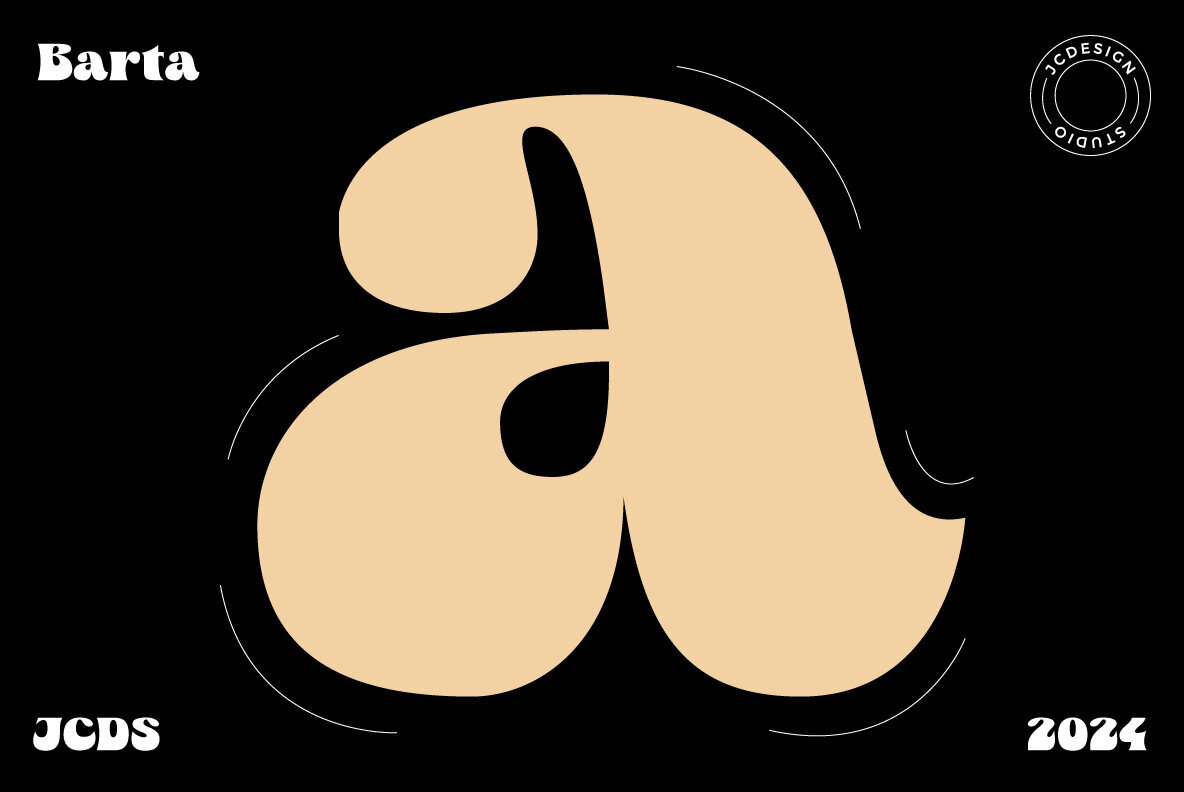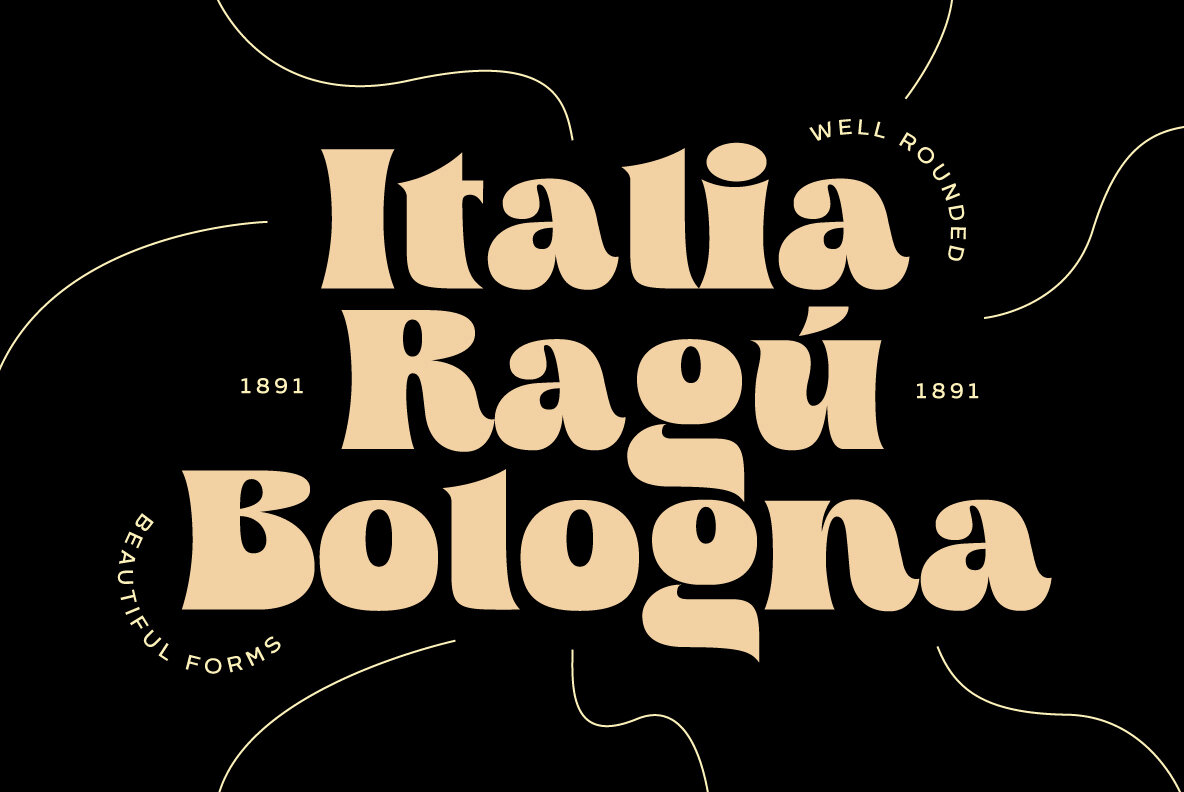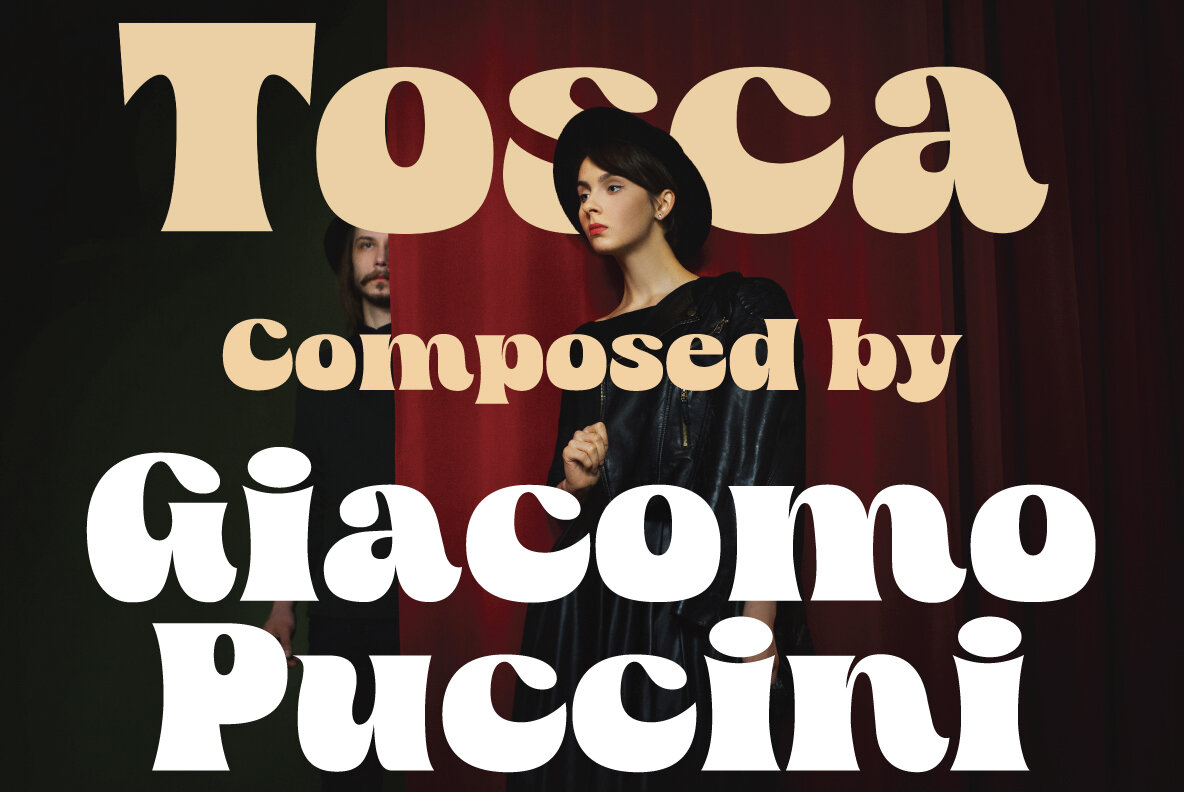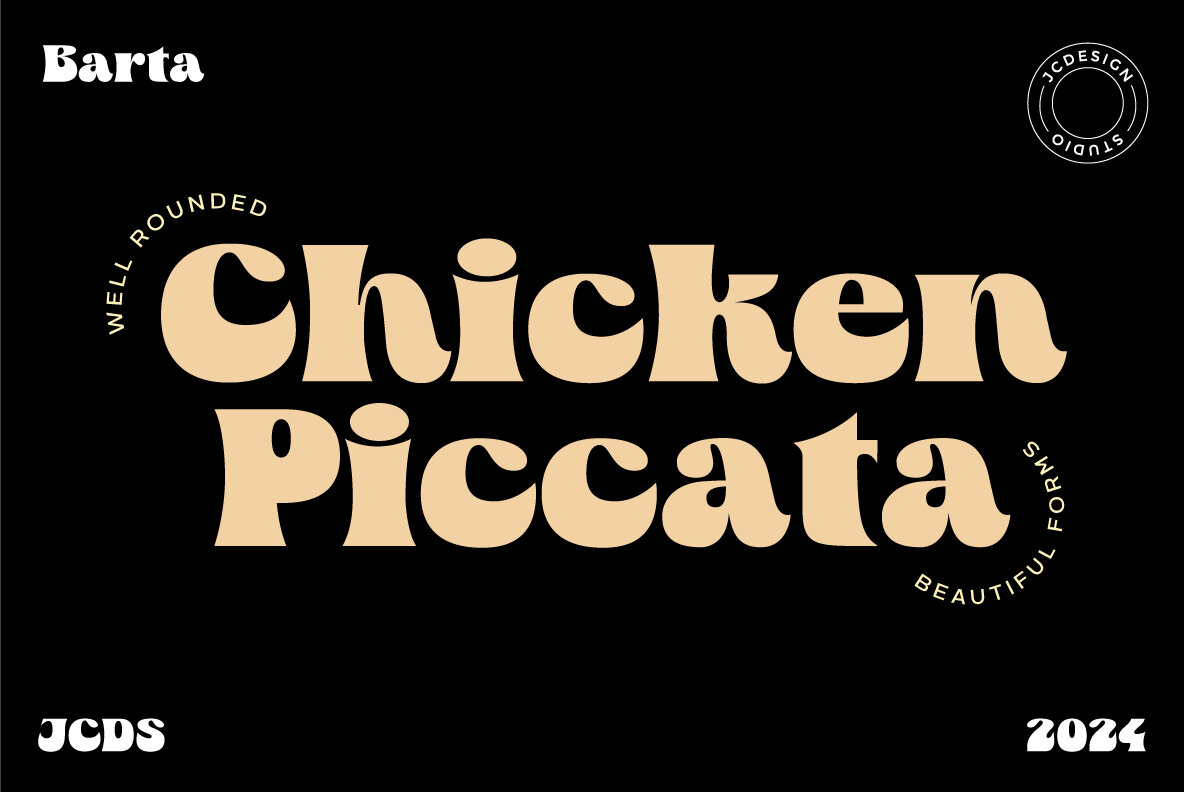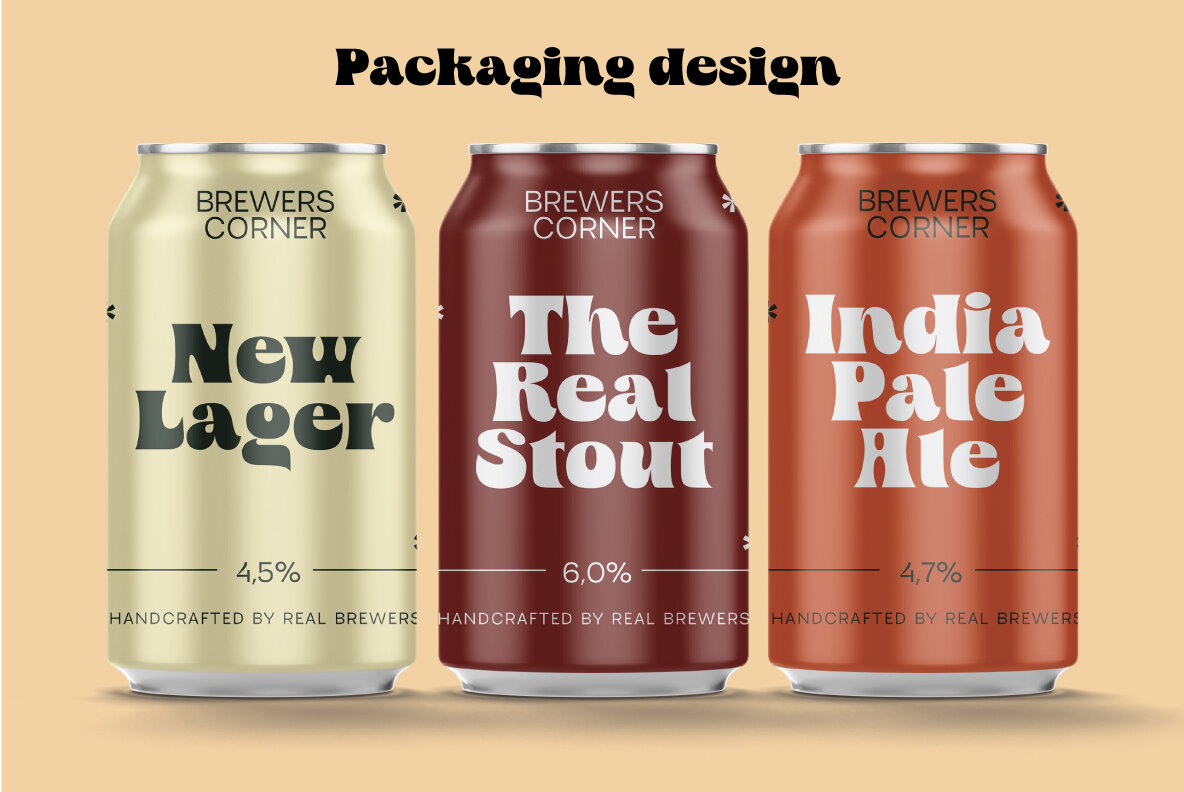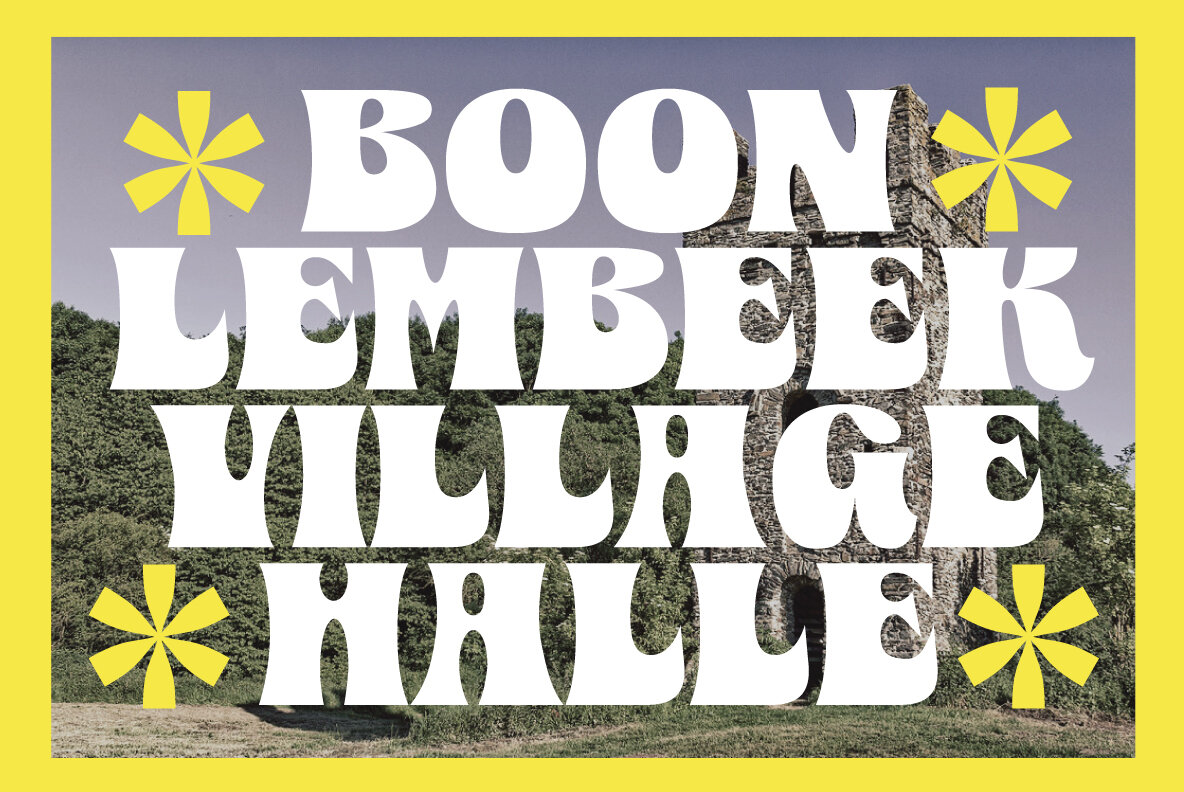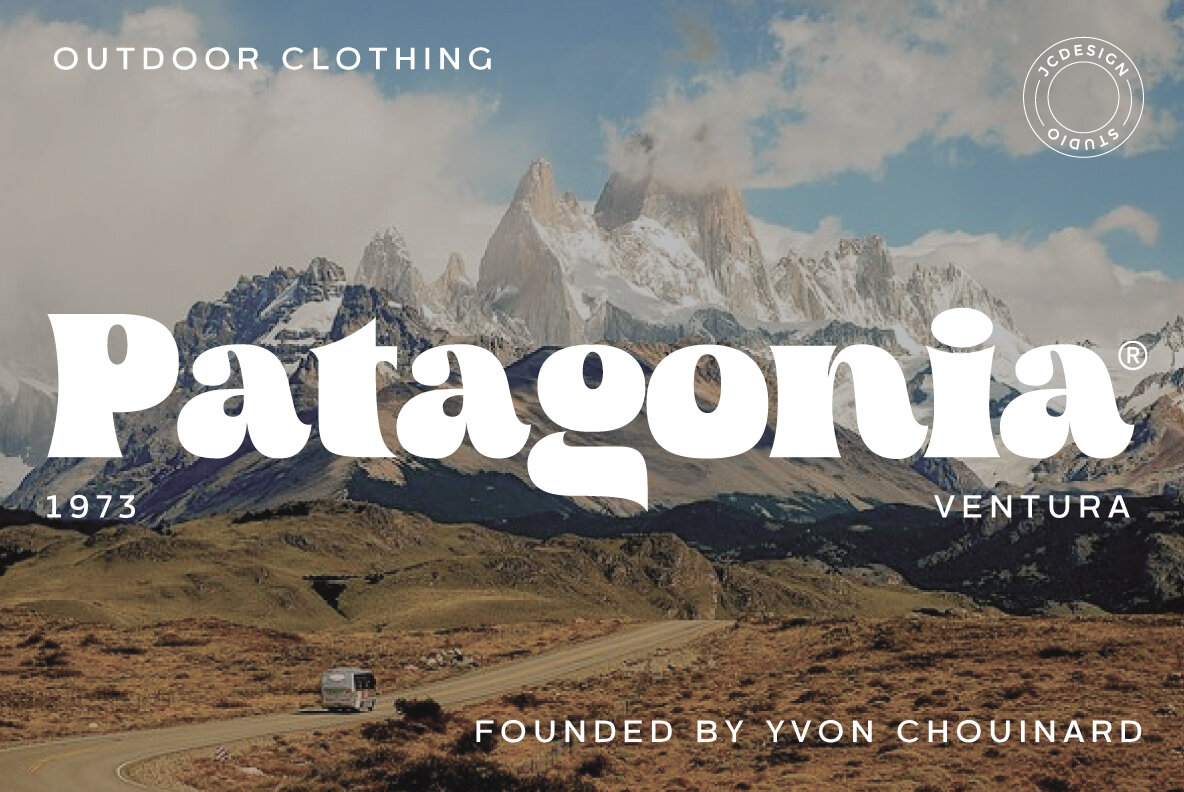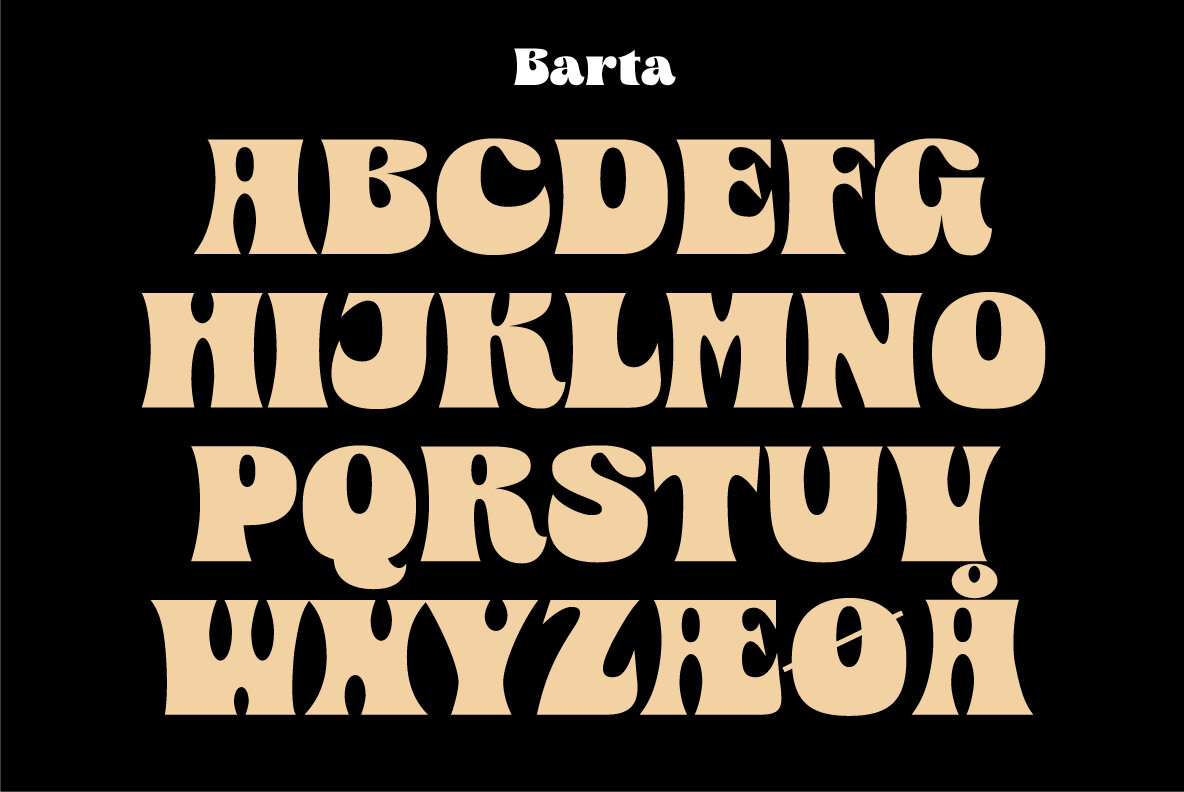
Barta Font
Barta Black
Barta is a striking serif typeface designed with a unique characteristic of thin upper lines contrasted with thick bottom lines. This design element creates a visually distinct appearance, making it an excellent choice for various design applications. Perfect for packaging design, magazine layouts, and posters, Barta's elegance effortlessly enhances visual projects. Its versatility extends to logo creation and other branding components, providing designers with a remarkable tool to achieve a sleek and distinctive aesthetic.
In addition to its design allure, Barta offers robust features to cater to diverse linguistic and technical needs. It includes a full range of uppercase and lowercase letters, numerals, punctuation, and multilingual accents. These comprehensive features ensure that Barta is not only stylistic but also functional, making it an essential typeface for designers seeking originality and adaptability across multiple design platforms.